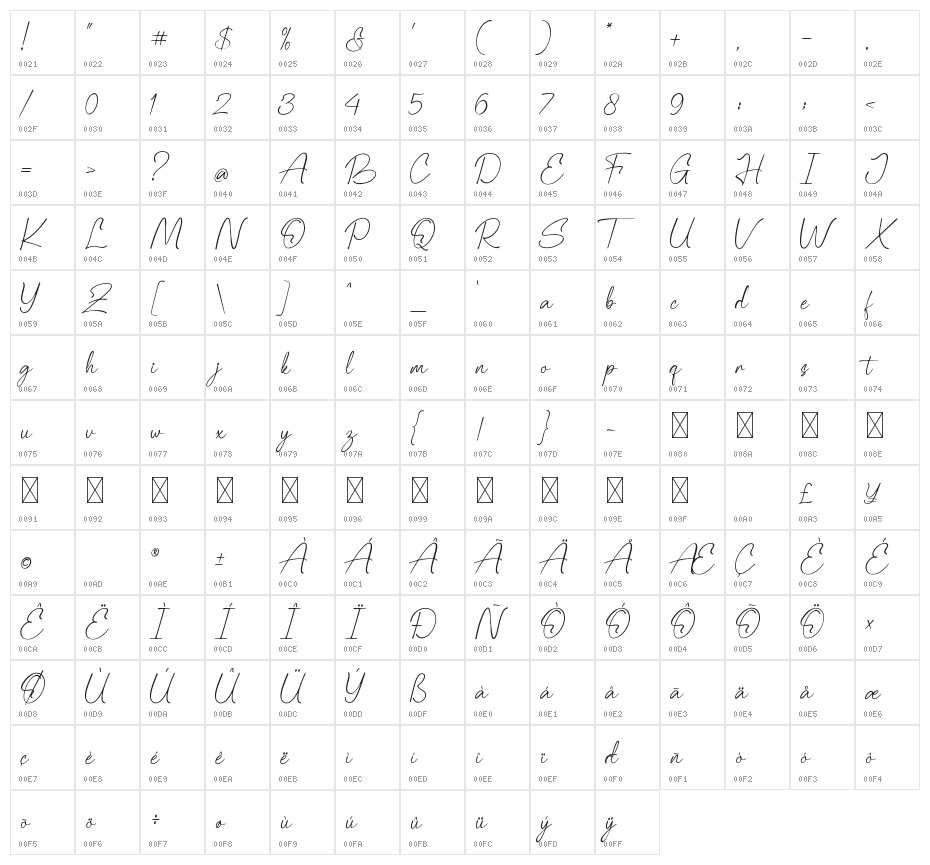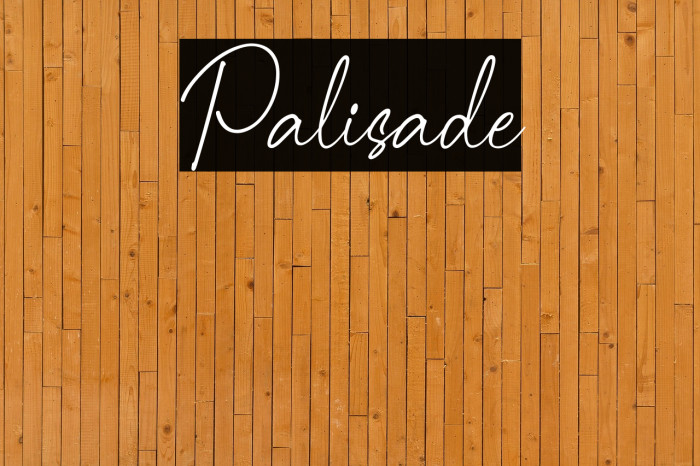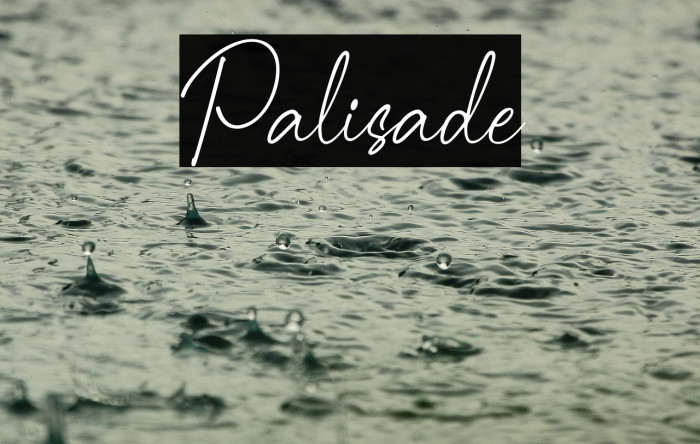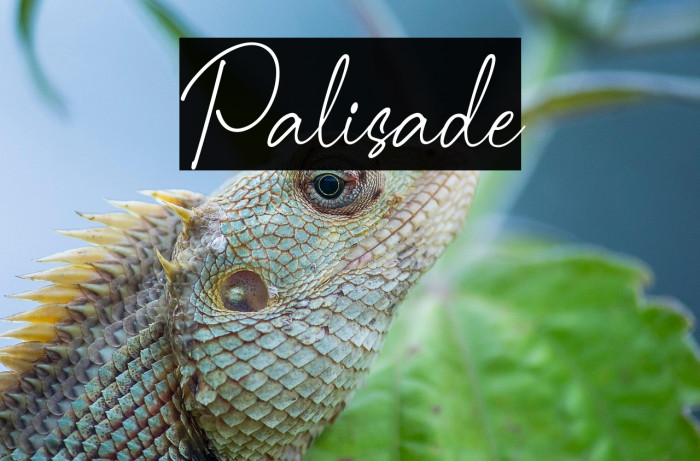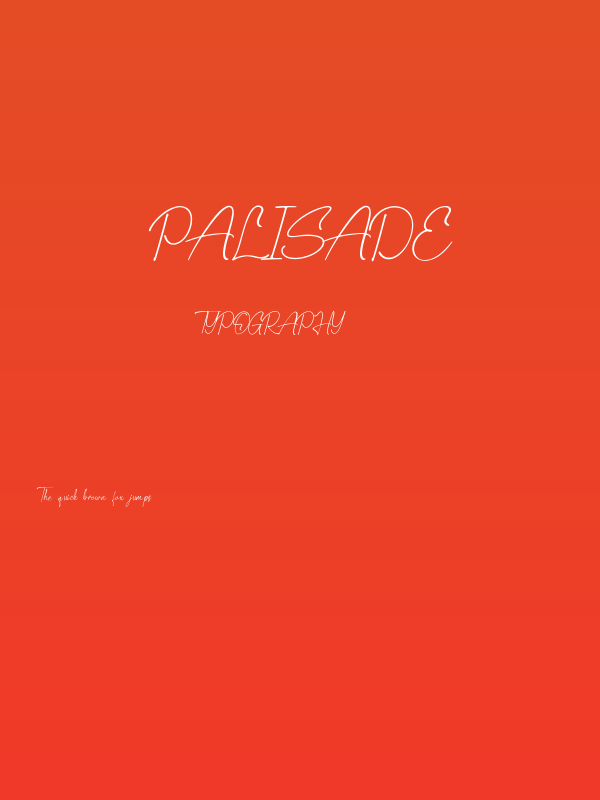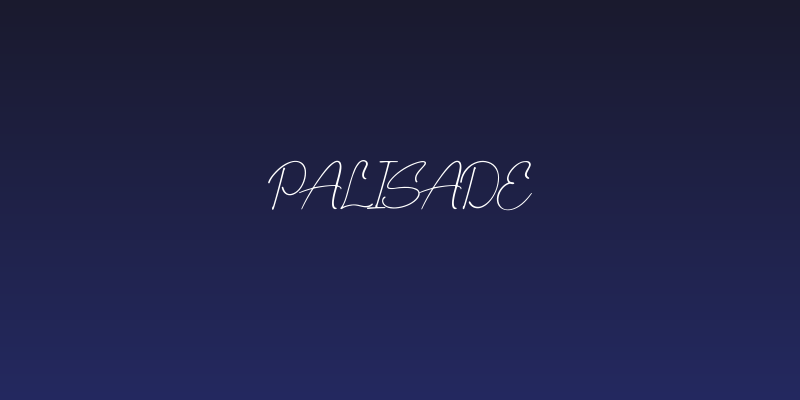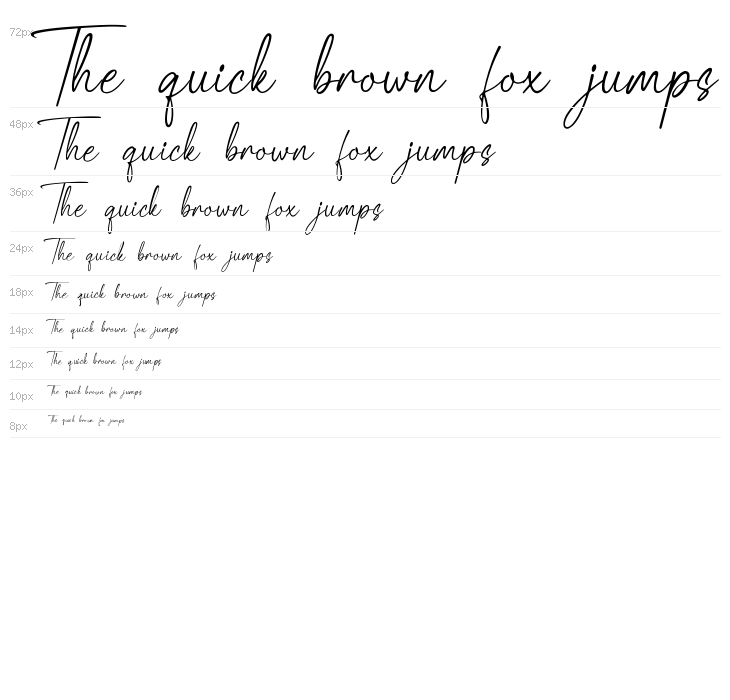
Palisade Font
Palisade Description
This font features an elegant and flowing script style, characterized by its smooth, cursive letterforms that mimic the fluidity of handwriting. The uppercase letters are gracefully elongated, while the lowercase letters maintain a consistent rhythm and balance. The numerals and special characters are designed to complement the overall aesthetic, adding a touch of sophistication. The font's delicate strokes and subtle curves create a sense of refinement and elegance, making it suitable for formal and decorative purposes.
| Overall Style | Elegant, Decorative |
| Use Case | Headlines, Invitations, Branding |
| Proposed Projects | Ideal for wedding invitations, greeting cards, elegant branding, and decorative headings. |